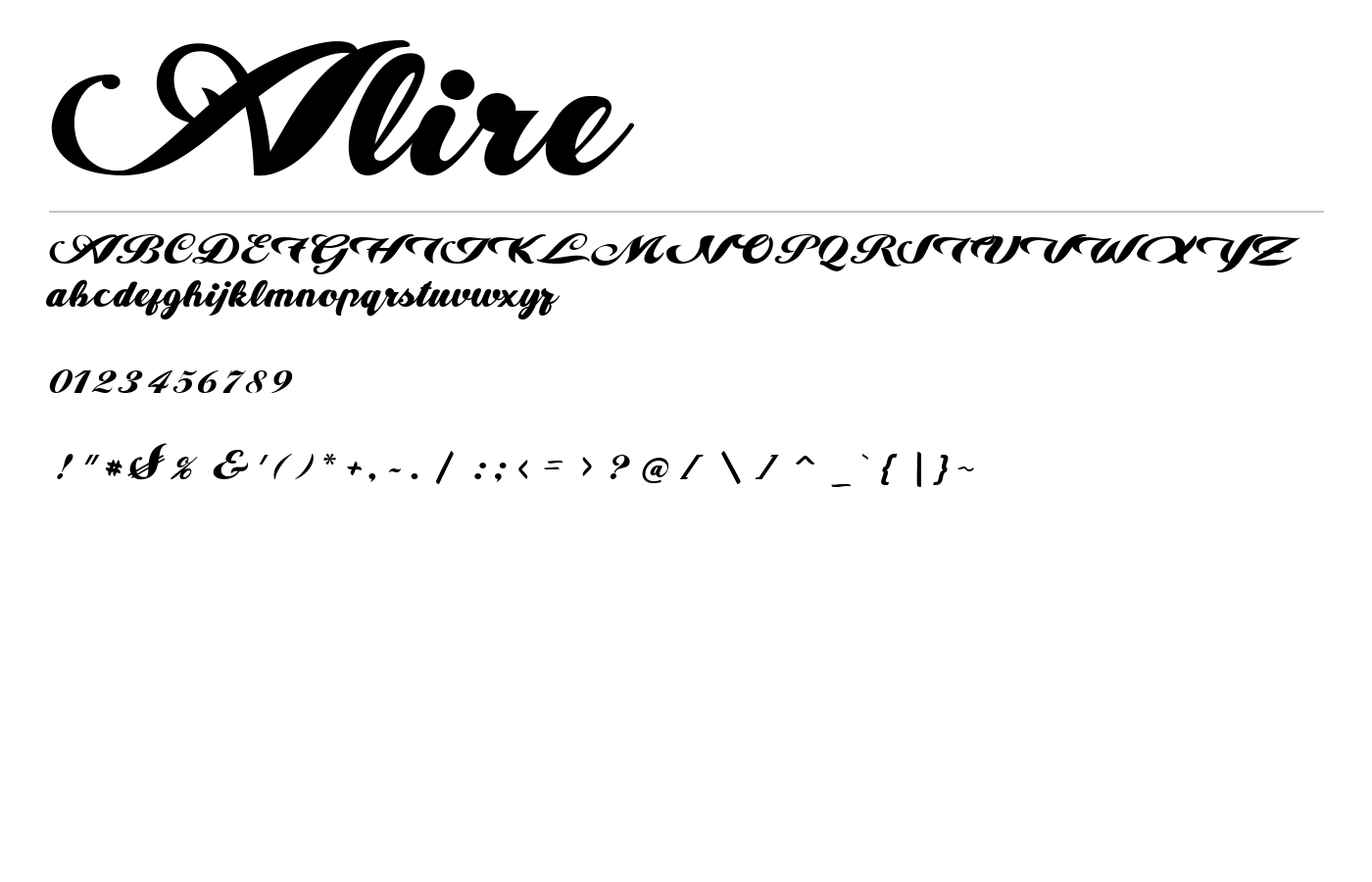
Alire is an elegant script font with bold, flowing strokes and high contrast between thick and thin lines, giving it a classic calligraphic feel. Its ornate uppercase letters and smooth, rounded lowercase forms make it perfect for sophisticated branding, invitations, and decorative headlines where a touch of luxury and refinement is desired. This font shines in designs that need a graceful, artistic flair to convey elegance and style.
Alire Font